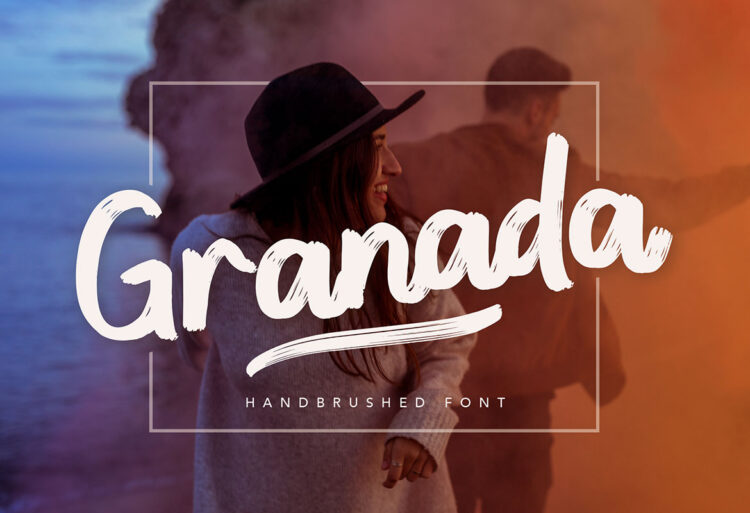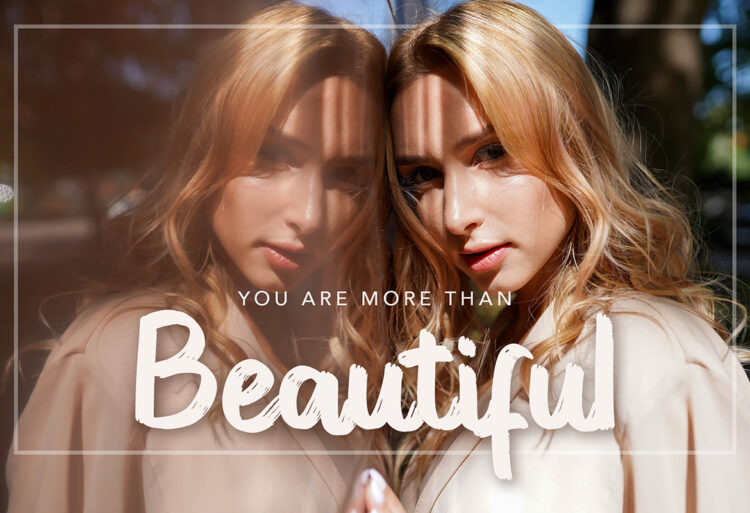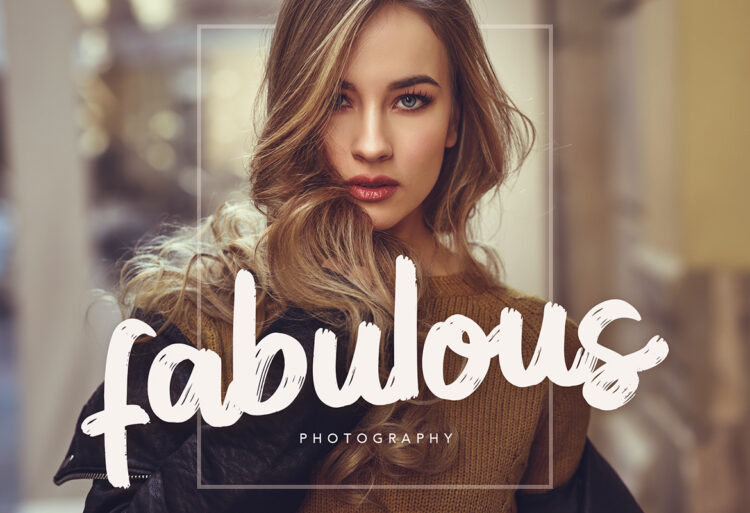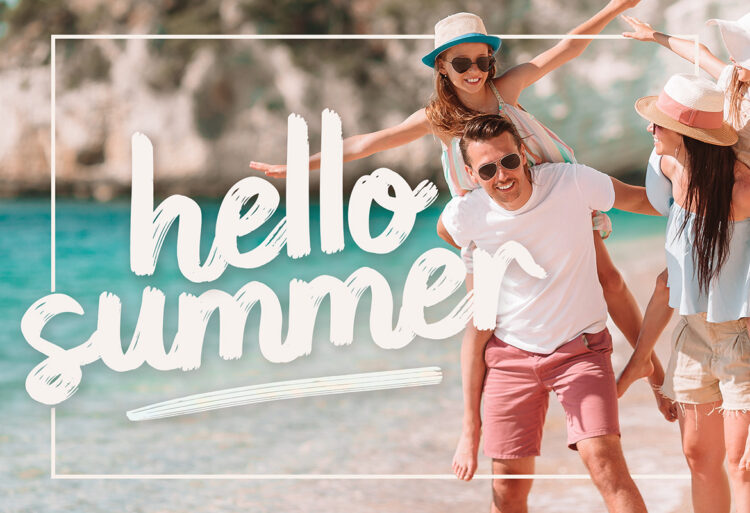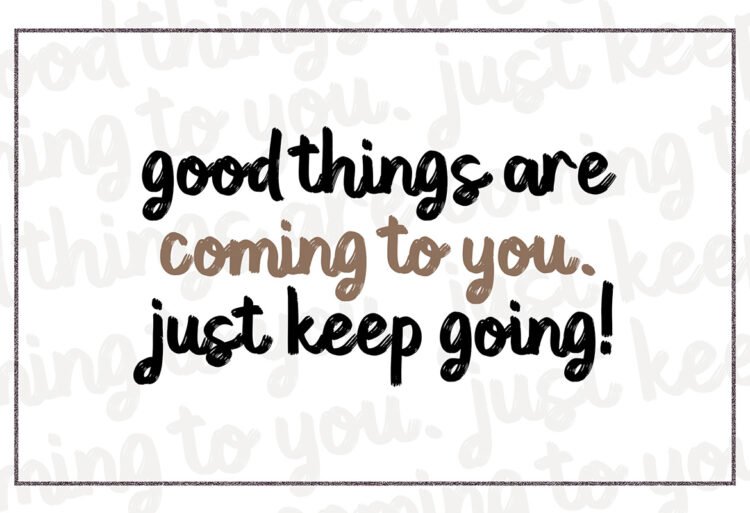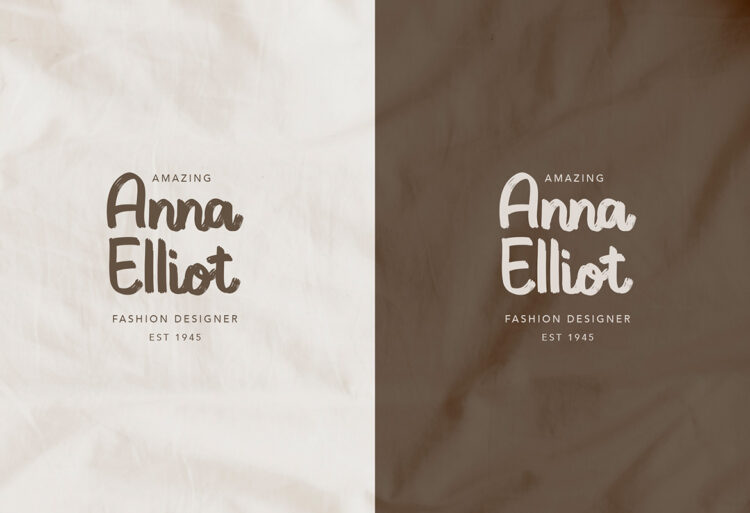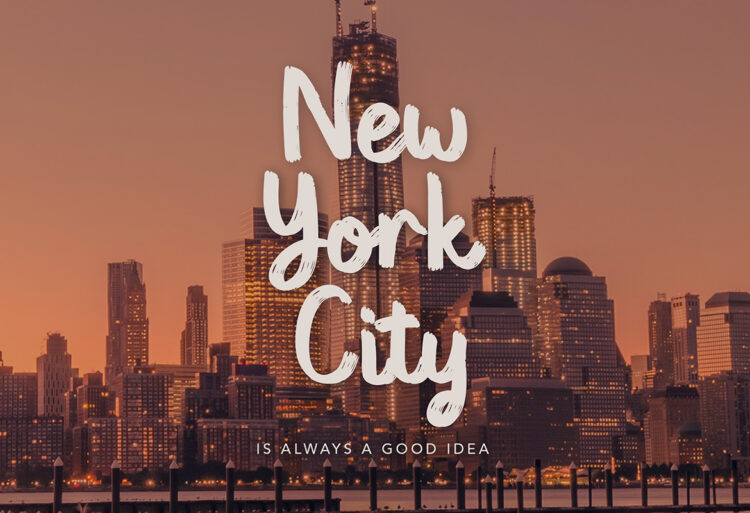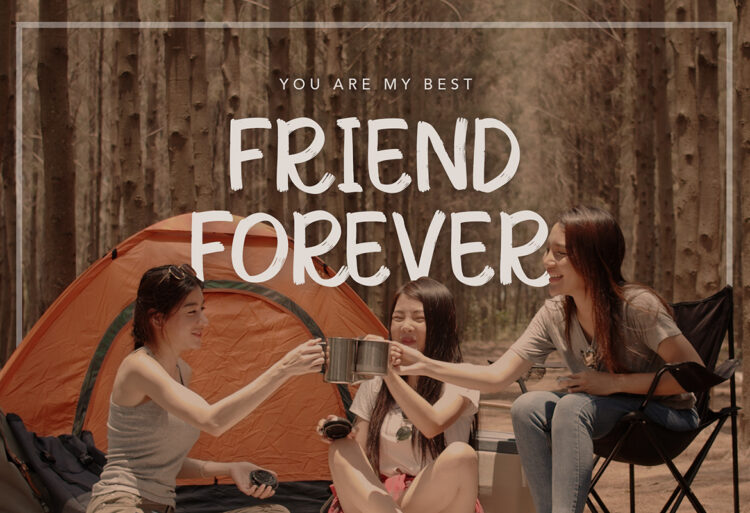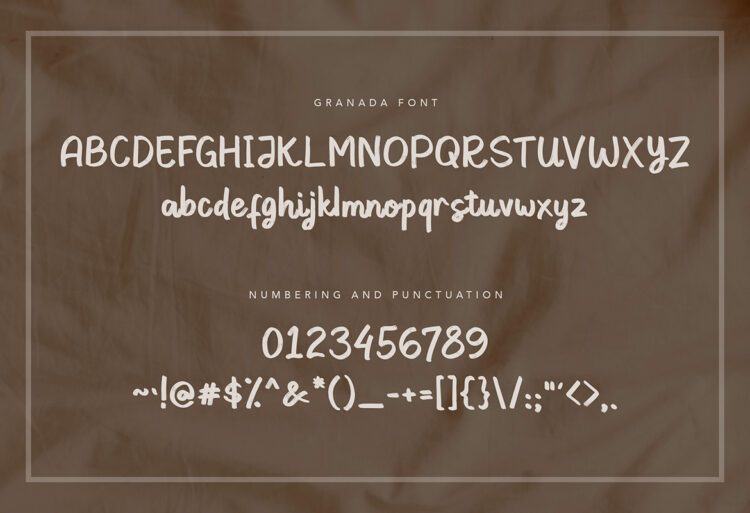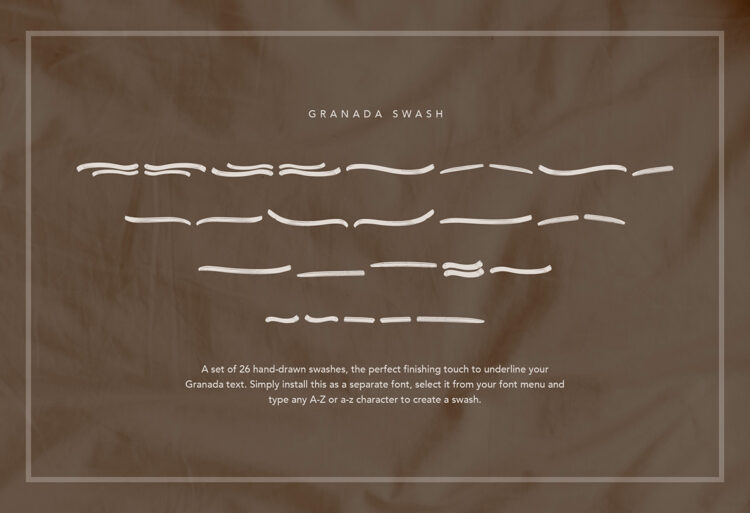
Never get tired to create a fresh and modern creative display when you use Granada as your font. As its name came from the city of Granada in Spain, Granada hand-brushed font offers you a bold font with a fun feel in every stroke. Granada is a perfect choice for branding projects, campaigns, quotes, product names, beauty-themed or a stylish text overlay to any background you have in mind.
Every package of Granada product includes 2 fonts files in OTF format, Granada Regular with a full series of the alphabet from A to Z, available in upper and lower case, punctuation and numbering; and Granada Swash, a set of 26 hand-drawn swash as an extra to give a finishing-underlined touch to every words or text you made by Granada Regular.
- Granada Regular: Hand brushed font type with a bold and fun character. It is perfect for the beauty and any clean layout.
- Granada Swash: A set of 26 hand-drawn swashes, the perfect finishing touch to underline your Granada text. Simply install this as a separate font, select it from your font menu and type any A-Z or a-z character to create a swash.
- Font type with fun and bold character
- Extra Swash
- Numbering and Punctuation